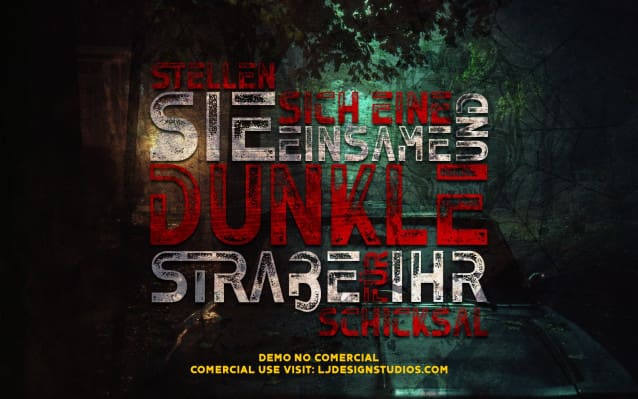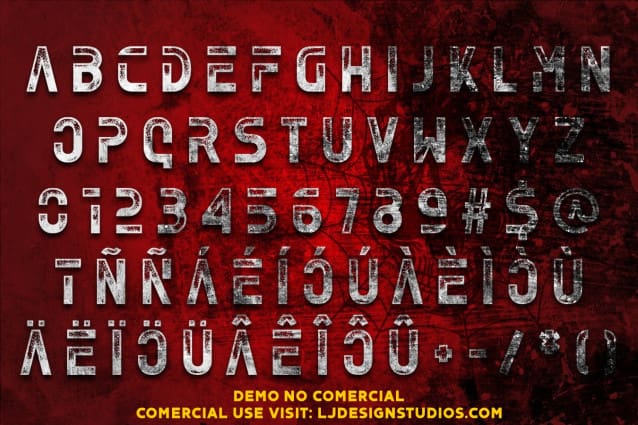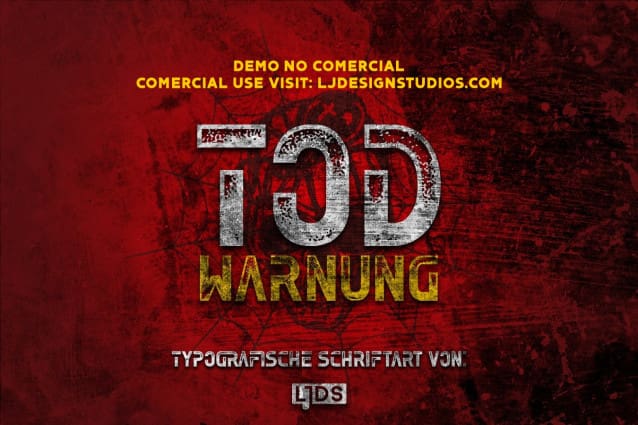
Tod Warnung Font
Tod Warnung Font, with its name in German we have an attractive and functional style, with a worn texture style based on brushes in Photoshop.
It can be adapted to any type of illustration and can highlight designs with a great touch of style, grunge, urban, underground.